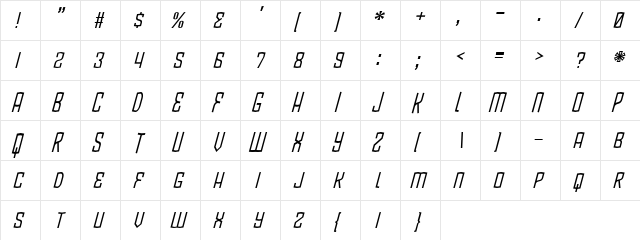
BlamDude BB Italic
Design Context for BlamDude BB Typeface
BlamDude BB takes a measured approach to typography — its balanced proportions and neutral character make it a reliable workhorse for both digital and print work. The dynamic lean of this cut emphasises speed and emphasis in any layout.
Pro Tip: Try BlamDude BB for annotation and caption copy alongside an upright companion — the contrast in angle creates a dynamic but ordered typographic system.